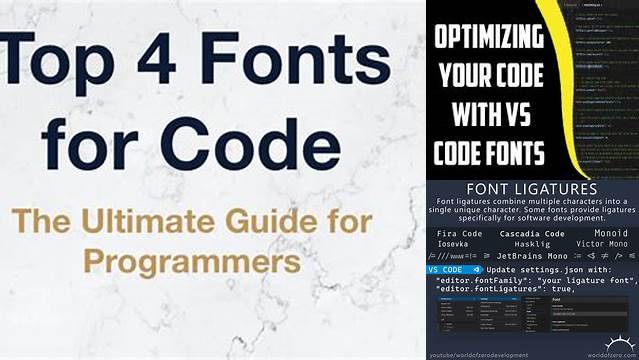
Best VS Code Fonts: Ultimate Guide
Hey everyone! Today, we're diving deep into something that might seem small, but can make a huge difference in your coding experience: fonts for VS Code. Picking the right font isn't just about aesthetics, although that's part of the fun. It's about readability, clarity, and ultimately, how comfortable you are staring at your code for hours. In this comprehensive guide, we'll explore some of the best VS Code fonts out there, helping you find the perfect fit for your coding style and preferences. We'll cover everything from the popular favorites to some hidden gems, along with tips on how to install and customize your fonts. So, grab your favorite caffeinated beverage, settle in, and let's get started on this font adventure! Choosing the right font is more crucial than you might think. It directly impacts your productivity, reducing eye strain and making it easier to spot those pesky bugs. The right font can make your code pop, improving readability and making the entire coding process more enjoyable. Let's face it, we spend a lot of time staring at our code, so why not make it as visually appealing and comfortable as possible? The perfect font is a blend of style and functionality, a balance that enhances your coding experience. So, let's explore the wonderful world of fonts and find the perfect match for your coding endeavors. The goal here is to ensure that you can work comfortably and effectively, making those long coding sessions feel a little less strenuous. From monospaced fonts that are perfect for coding to fonts that offer unique ligatures, we've got you covered. Let's explore all the options available for a great coding experience.
1. Why Your VS Code Font Matters
Alright, guys, before we jump into the font recommendations, let's talk about why this even matters. Why should you care about your VS Code font? Well, think about it: you're staring at your code for hours on end. A poorly chosen font can lead to eye strain, headaches, and a generally unpleasant coding experience. On the flip side, a well-chosen font can make your code look beautiful, improve readability, and even boost your productivity. VS Code fonts are more than just a cosmetic choice; they are essential for a comfortable and efficient coding environment. The right font enhances your ability to quickly parse code, spot errors, and understand complex structures. A readable font also minimizes eye strain, allowing you to work for longer periods without fatigue. In the long run, this translates to increased productivity and a more enjoyable coding experience. Selecting a font might seem like a simple task, but it holds significant importance. It's the foundation of your coding experience, shaping how you perceive and interact with your code. It's about comfort, clarity, and efficiency. With the right font, your coding sessions can become less of a chore and more of a pleasure. The goal here is to ensure that your coding setup is optimized for comfort and efficiency, which is why choosing the right VS Code font is so critical. So, let's ensure that the fonts we choose for VS Code can provide an excellent and comfortable environment for you. Let's explore the realm of available fonts.
2. Top Monospaced Fonts for VS Code
When it comes to coding, monospaced fonts are the kings. Each character in a monospaced font takes up the same amount of horizontal space, which makes your code align neatly, improving readability and making it easier to spot errors. Here are some of the top monospaced fonts for VS Code:
2.1. Fira Code
Fira Code is a super popular choice, and for good reason. It's got a clean, modern look and supports ligatures. Ligatures are special characters that combine two or more characters into a single glyph. For example, ==
might become a single, more visually distinct equals sign. This can make your code look cleaner and more readable. Fira Code is designed with coding in mind, offering a great balance of readability and style. It's open-source, which means it's free to use and actively maintained by a community of developers. The font supports a wide range of characters, ensuring compatibility with various programming languages and codebases. The use of ligatures is a game-changer for visual clarity, helping you see the structure of your code more intuitively. With Fira Code, your coding experience will be smoother and more enjoyable. This font is a top pick among developers for its excellent readability and aesthetic appeal. For anyone looking for a modern font, Fira Code is a must-try. This is one of the great VS Code fonts. Fira Code is a top-tier choice, making it a solid choice for many developers. Many developers swear by it for good reason.
2.2. Source Code Pro
Source Code Pro is another solid option from Adobe. It's a clean, professional-looking font that's easy on the eyes. It's designed specifically for code, which means it has clear letterforms and excellent readability. If you're after a no-nonsense font that gets the job done, Source Code Pro is a great choice. It's available for free and works well on all operating systems. Its simplicity makes it a good choice for beginners and experienced coders alike. The character design ensures that you can differentiate between similar characters such as 0
(zero) and O
(the letter 'O') or l
(lowercase L) and 1
(one). Choosing Source Code Pro is a safe bet if you value clarity and readability. The font's professional design suits any coding environment, enhancing your focus and improving the overall coding experience. It's available on all major platforms, so it is easy to use. Source Code Pro is a classic choice that's been a favorite in the coding community for years. Its readability is one of its most compelling features. Source Code Pro is one of the most accessible VS Code fonts. This is a good choice if you want simplicity.
2.3. JetBrains Mono
JetBrains Mono is designed by the creators of IntelliJ IDEA, a popular IDE. It's specifically created for coding, with a focus on readability and legibility. It features a taller x-height (the height of the lowercase 'x'), which makes it easier to read, especially in smaller sizes. If you spend a lot of time coding, JetBrains Mono is definitely worth checking out. It also supports ligatures, adding to its visual appeal and readability. JetBrains Mono's design philosophy emphasizes clarity and precision, which makes it perfect for complex codebases. Its excellent design reduces eye strain, and the font's character shapes are optimized for quick visual parsing. This is a brilliant font for VS Code. JetBrains Mono offers a balance of style and practicality, making it an excellent addition to your coding arsenal. This is a good option for everyone. The key feature of JetBrains Mono is the legibility of characters.
3. Stylish Fonts with Ligatures for VS Code
Ligatures can significantly enhance your coding experience by making your code more visually appealing and easier to read. Let's explore some stylish fonts for VS Code that come with ligature support:
3.1. Cascadia Code
Cascadia Code is a modern monospaced font developed by Microsoft, specifically for the Windows Terminal and VS Code. It's designed with ligatures in mind, so your code looks clean and stylish. It’s a great option if you're looking for a modern font with a touch of flair. Cascadia Code supports a wide range of ligatures, and it has excellent readability. Its design is fresh and contemporary, ensuring that your code looks great. The font’s developers have taken great care to ensure that it works well in various coding scenarios. The font's modern design and comprehensive ligature support make it a top-notch choice for those seeking a visually appealing coding experience. If you want a modern font that can make your code more appealing, Cascadia Code is a must-try. The ligatures are a nice touch! Cascadia Code is an excellent option for VS Code. It is designed to provide the best experience.
3.2. Operator Mono
Operator Mono is a premium font with a sleek, modern design. It's known for its elegant look and is a favorite among designers and developers alike. Operator Mono is a paid font, but it’s worth it if you value aesthetics and readability. It supports ligatures and is optimized for coding. This font makes your code look super clean and professional. The font is beautifully crafted and enhances the overall appearance of your code. It makes you more proud of your work. The quality of the characters is superb, and the font is perfect for code. Operator Mono is the perfect choice if you want your code to look beautiful. You should definitely try this VS Code font. While it's a premium option, the visual experience is unmatched.